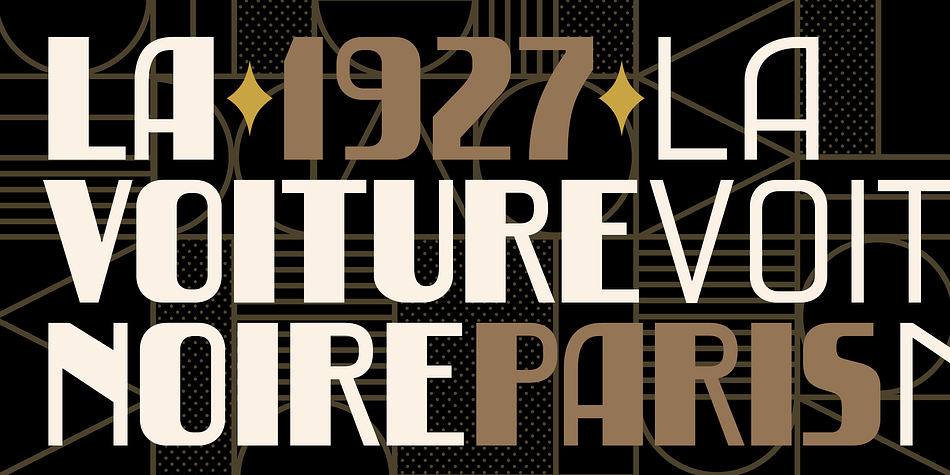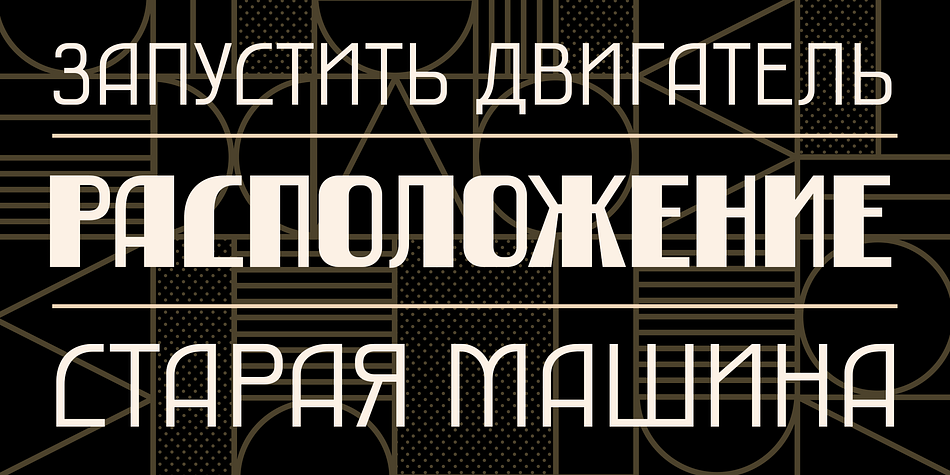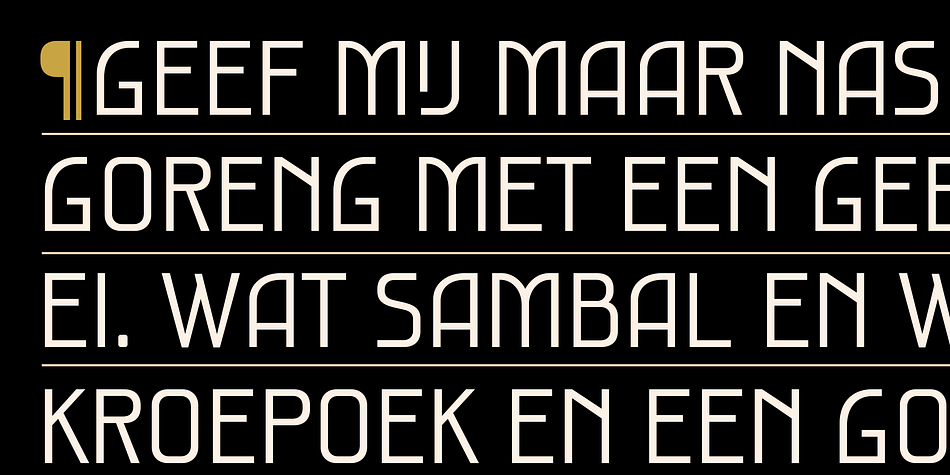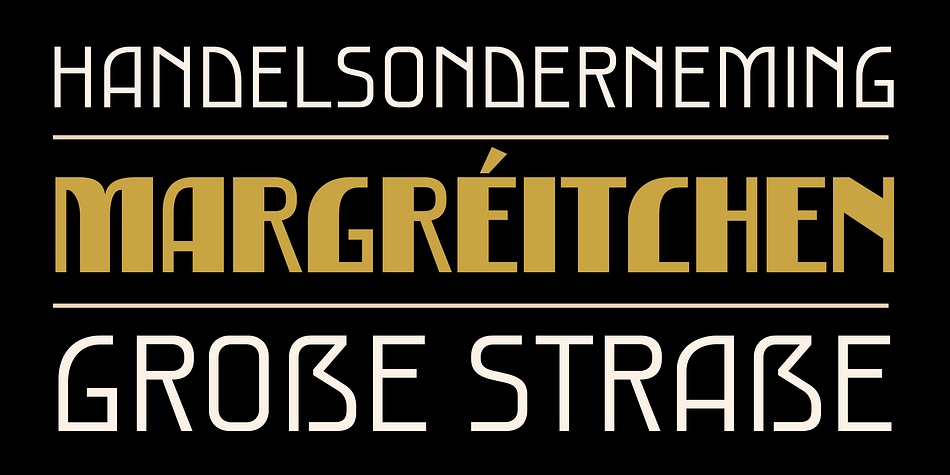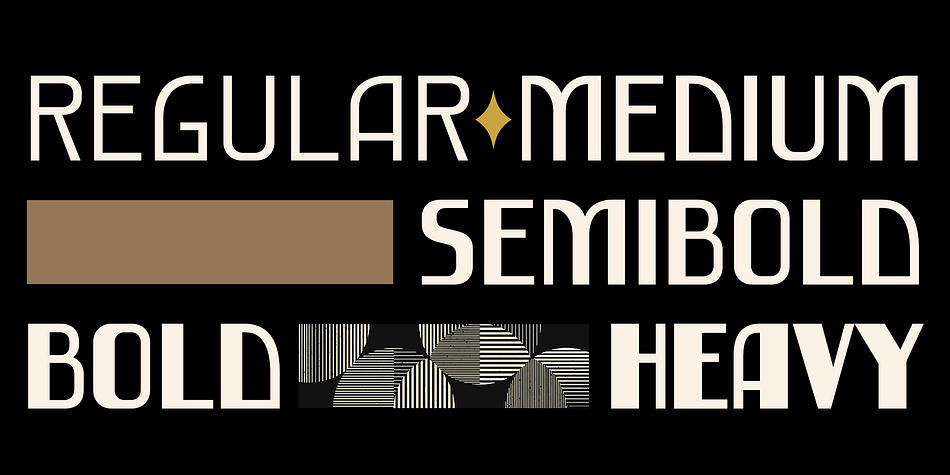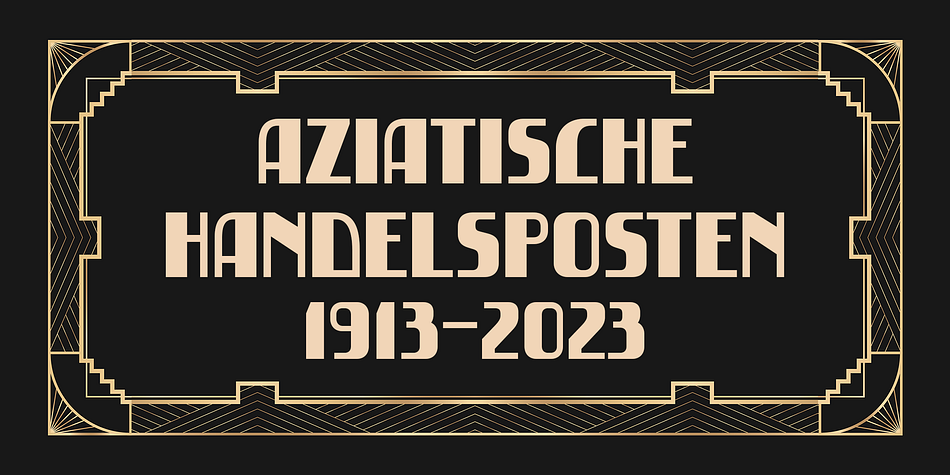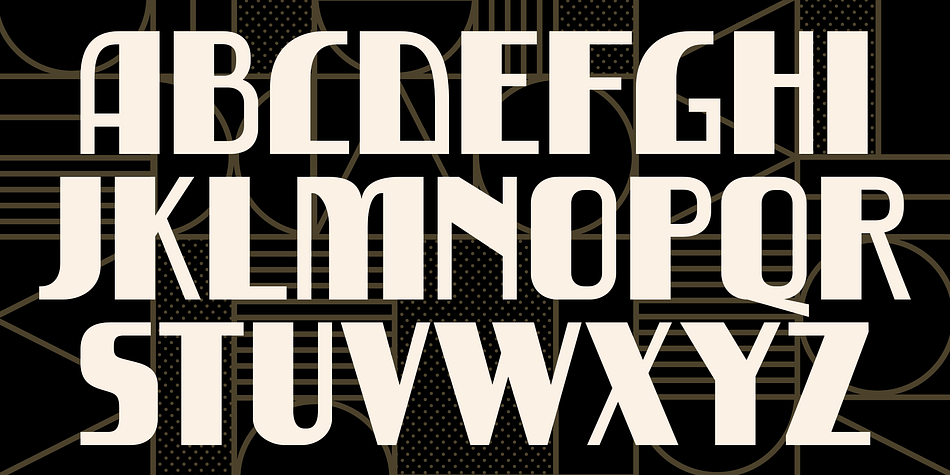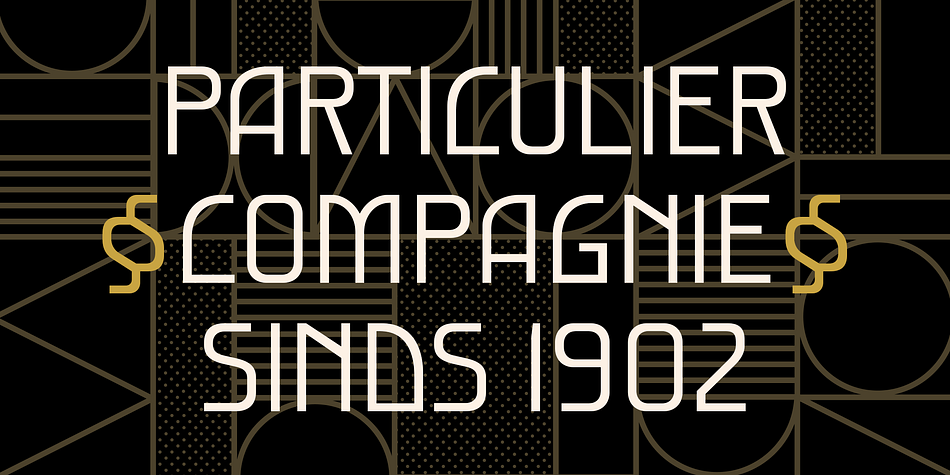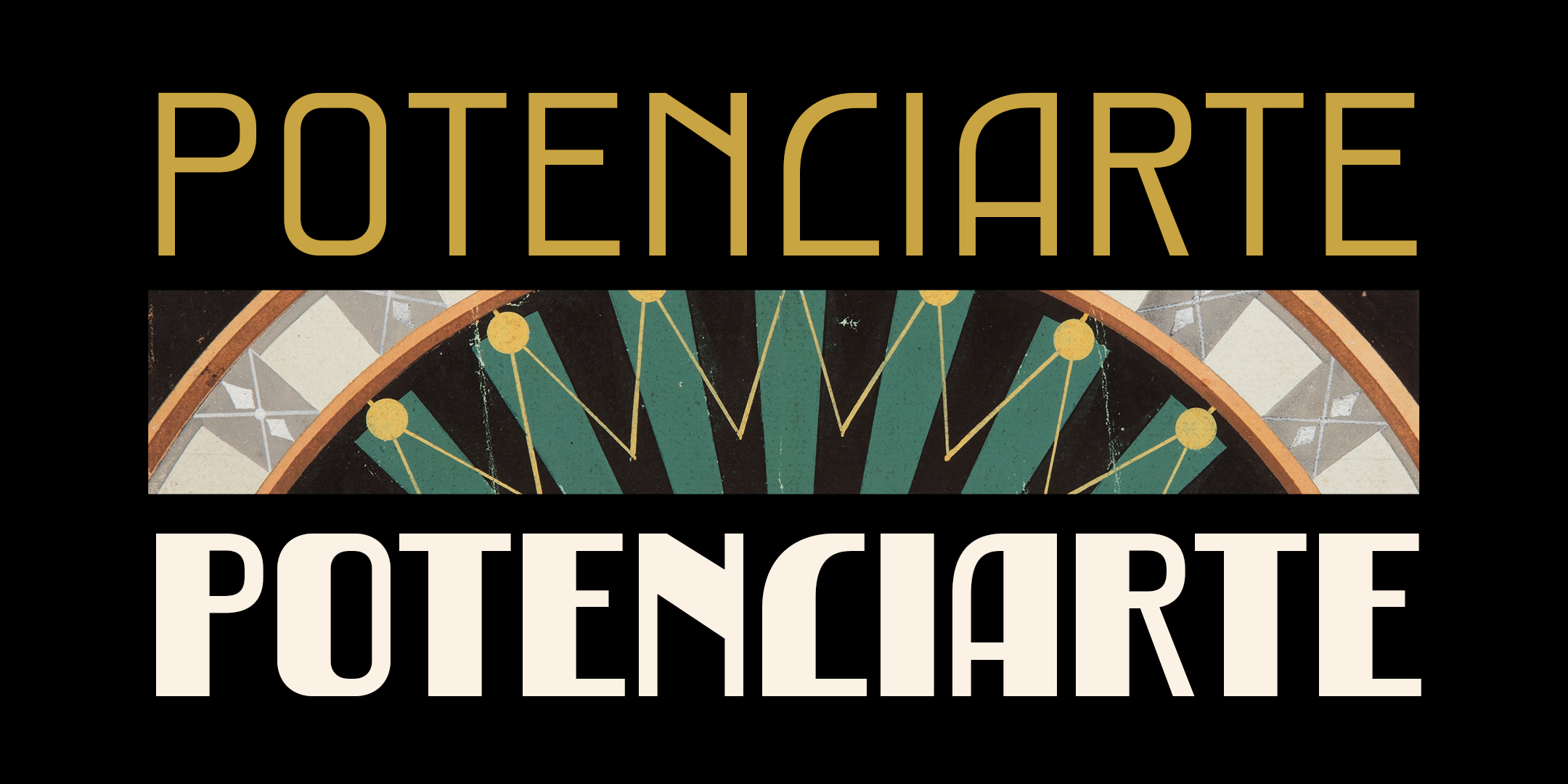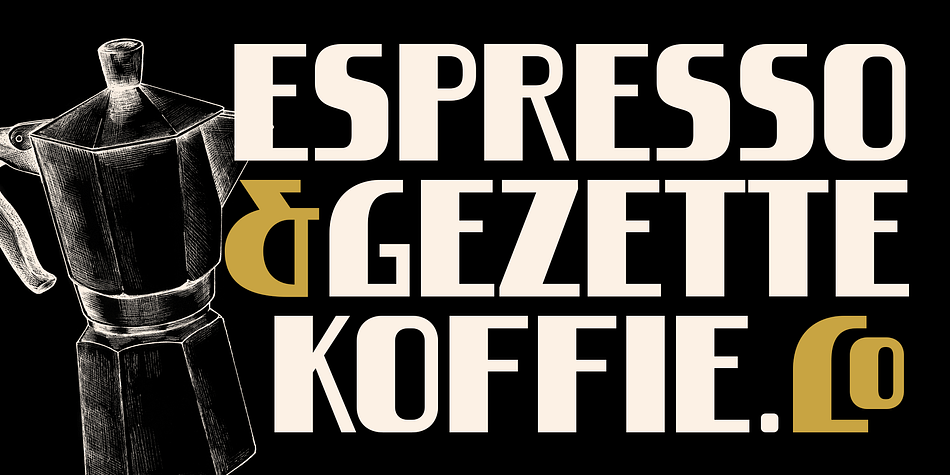
POTENCIARTE
Designed by Nasir Udin, Potenciarte is an art deco and display sans font family. This typeface has five styles and was published by Nasir Udin.
Potenciarte is an all-caps display typeface inspired by the facade of old buildings from the era of Nederlandsch-Indie (1900’s) in Surabaya, where Art Deco & Art Nouveau typeface were widely used.
Potenciarte has 5 weights and support Latin & Cyrillic.